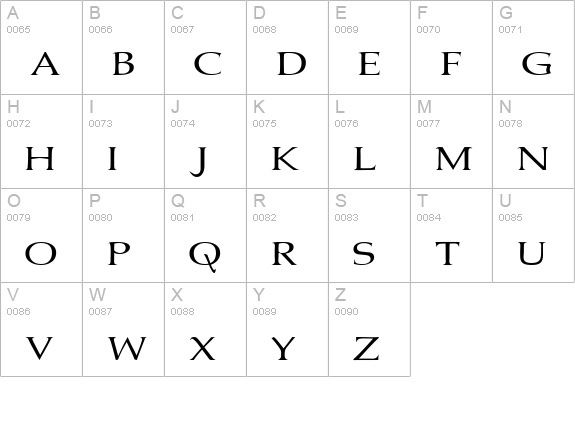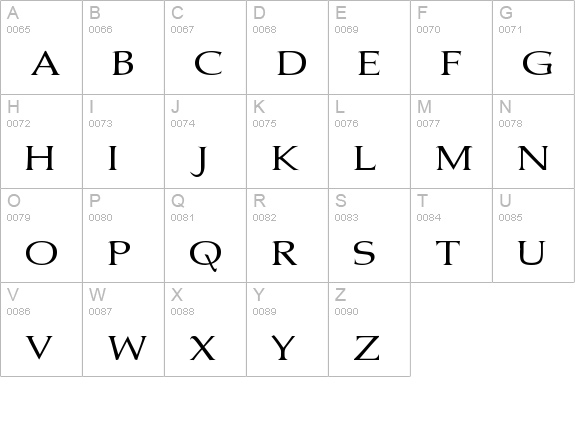
Jhunwest Font Details
Introducing the exquisite Jhunwest font, a striking display typeface that combines elegance with modern flair. With its sleek lines and stylish curves, Jhunwest is perfect for creating eye-catching designs that demand attention. Whether used for logos, branding, posters, or social media graphics, this versatile font is sure to make a bold statement. What sets Jhunwest apart is not only its exceptional design quality but also the fact that it is available for free download. That's right, you can easily access this stunning font at FontsMarket.com without any cost. Embrace the creativity and versatility of Jhunwest in your projects and watch as your designs come to life with a touch of sophistication and charm. Download Jhunwest today and elevate your design game to new heights!